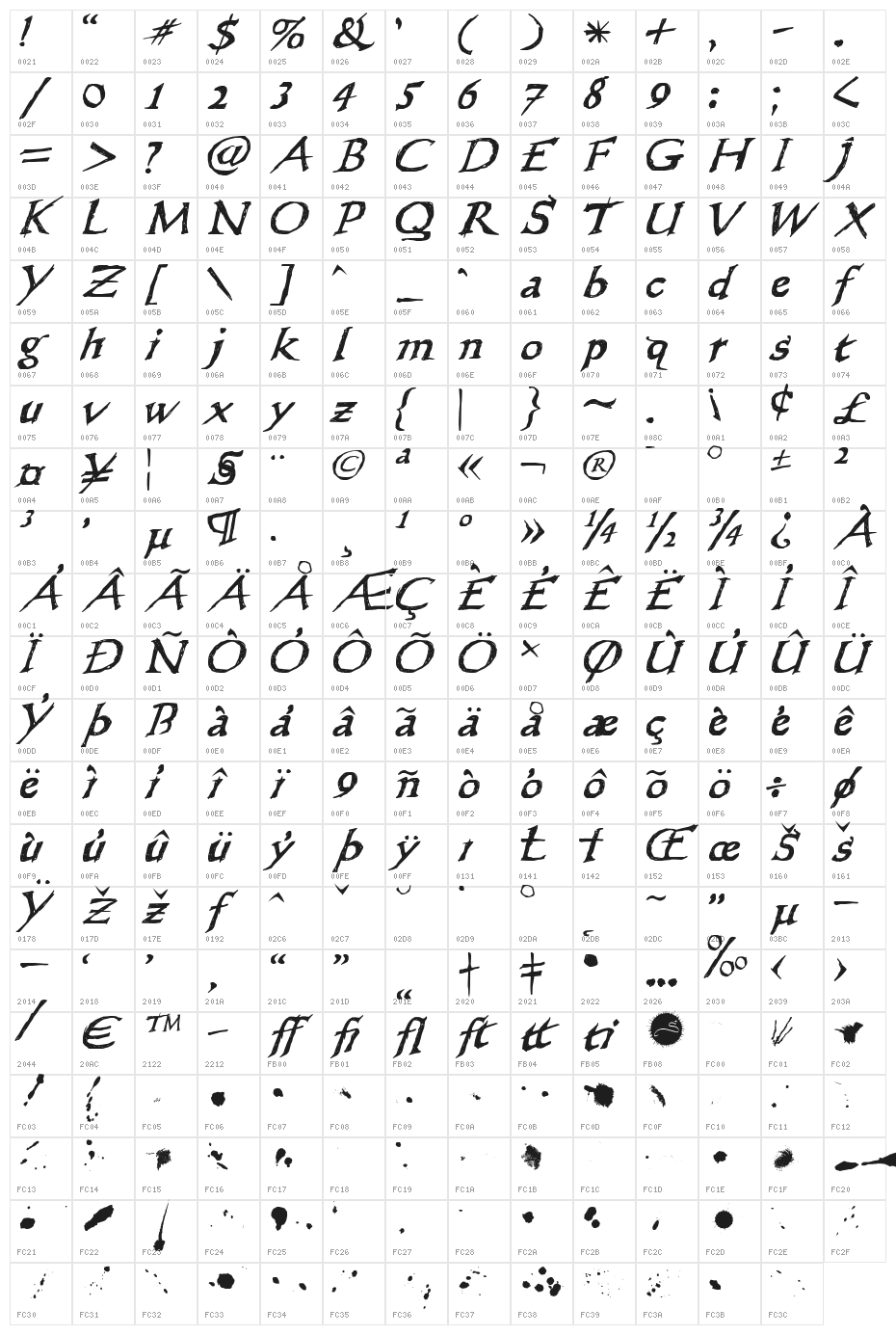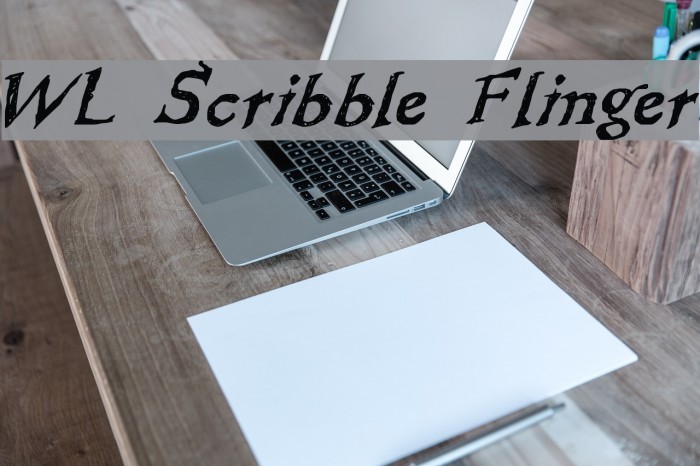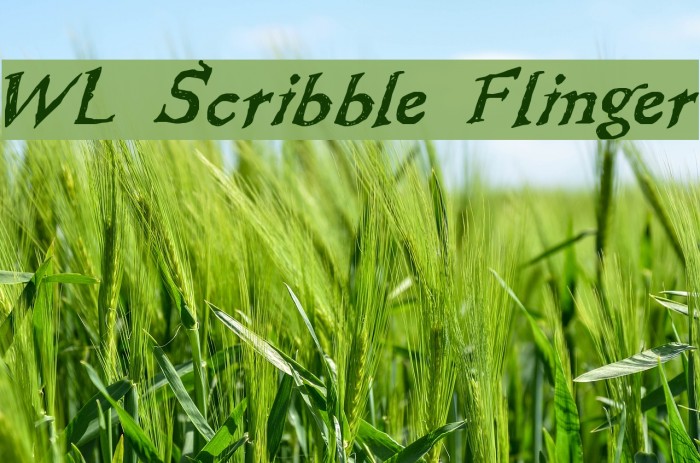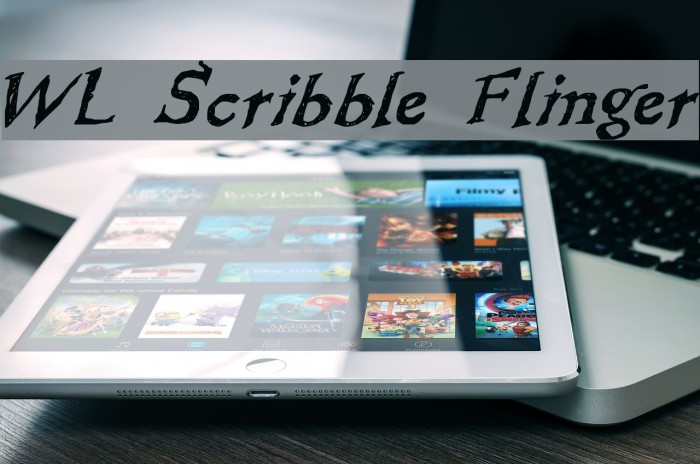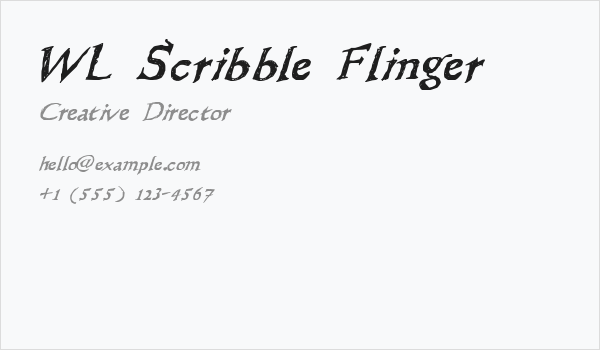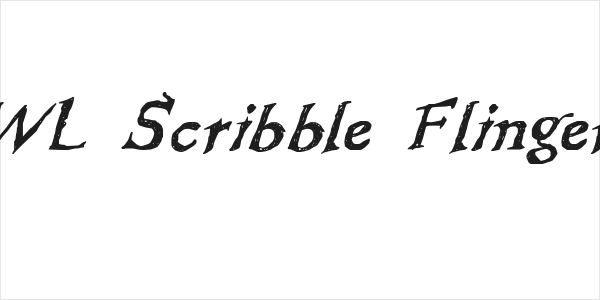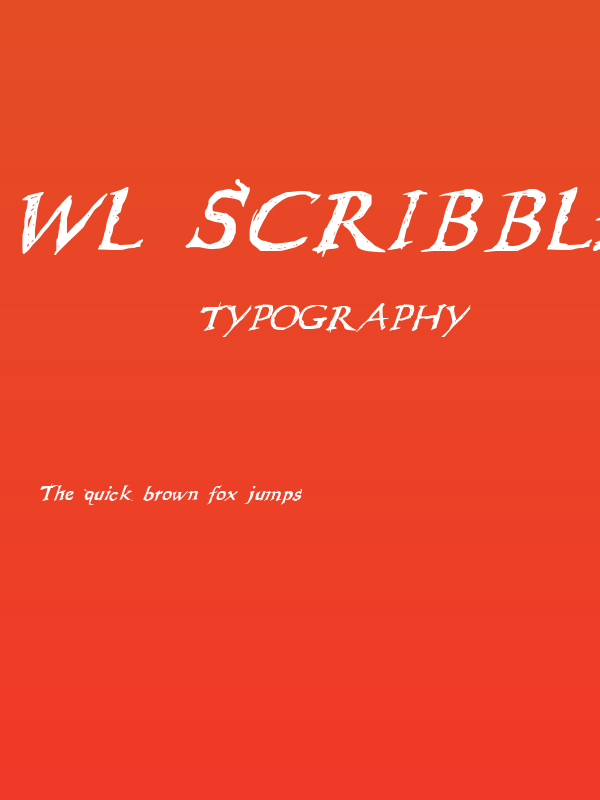
WL Scribble Flinger Font
WL Scribble Flinger Description
This font features a dynamic and energetic style, characterized by its sharp, angular strokes and a hand-drawn appearance. The letters have a slightly irregular baseline, giving them a lively and spontaneous feel. The uppercase letters are bold and commanding, while the lowercase letters maintain a consistent flow with a touch of whimsy. The numerals are distinct and match the overall style, ensuring readability while maintaining the font's unique character. The special characters are well-integrated, adding to the font's versatility. This font is perfect for projects that require a personal, artistic touch.